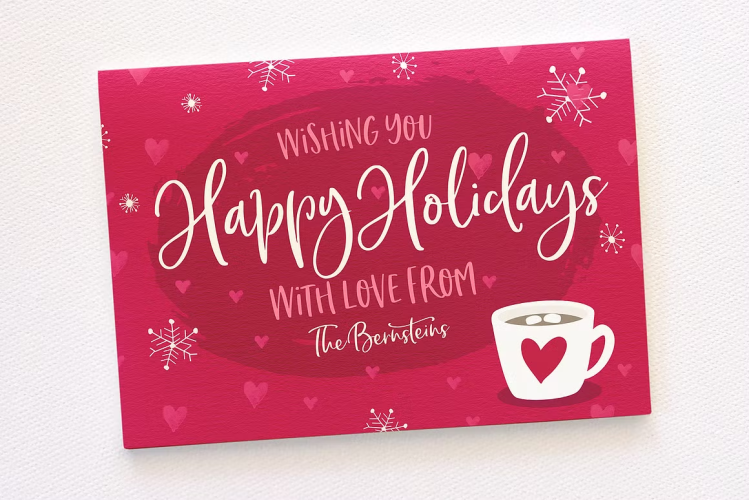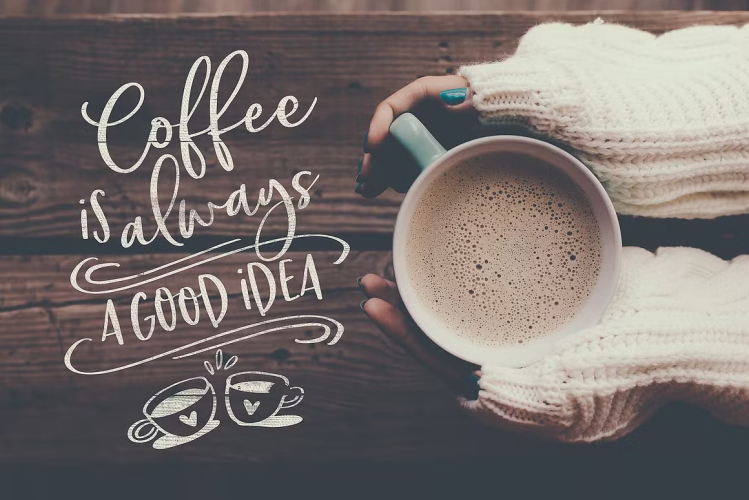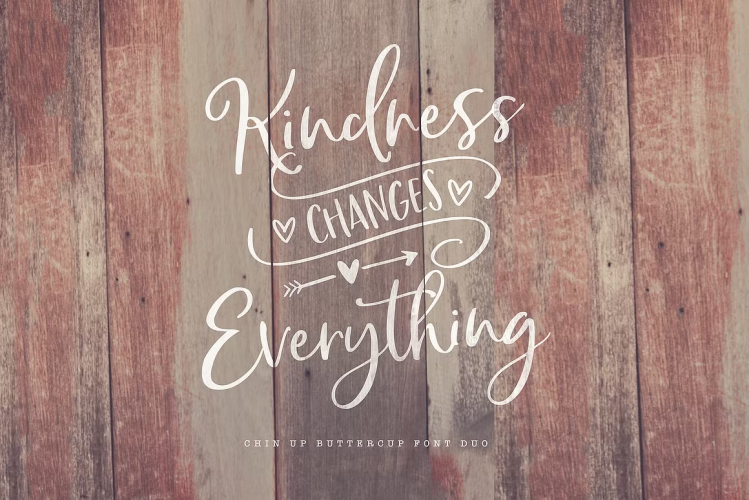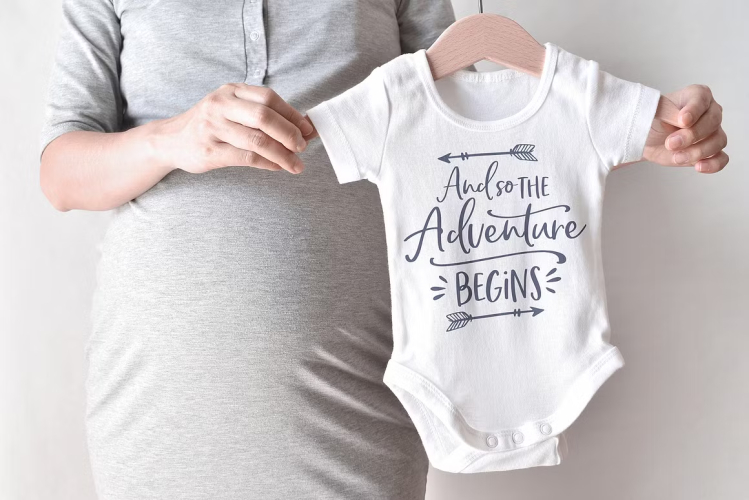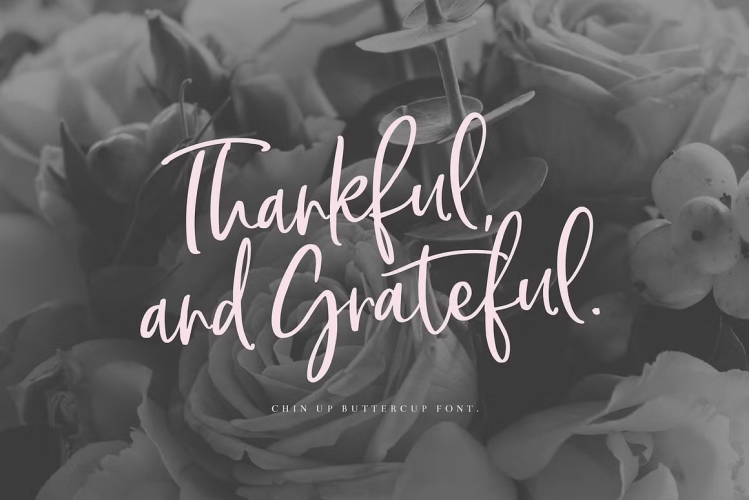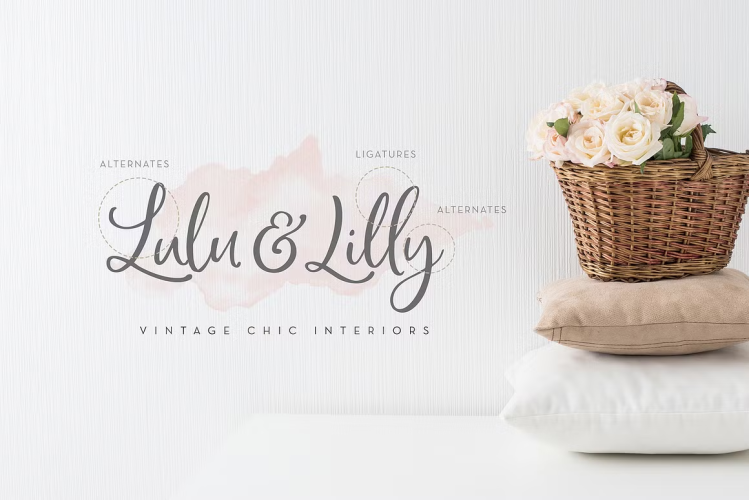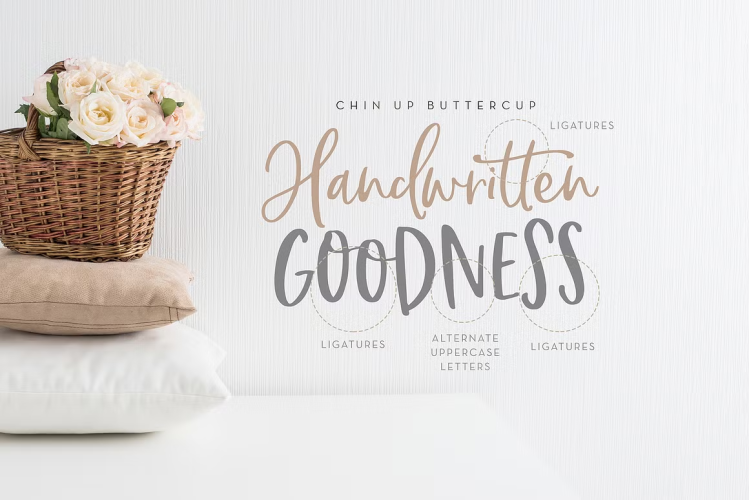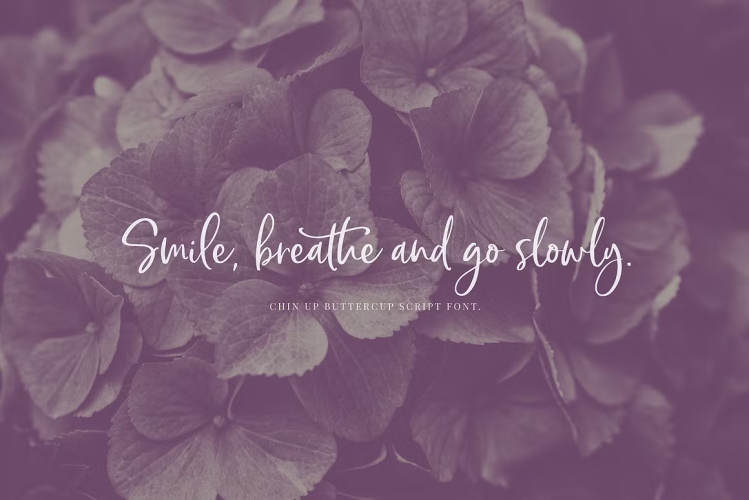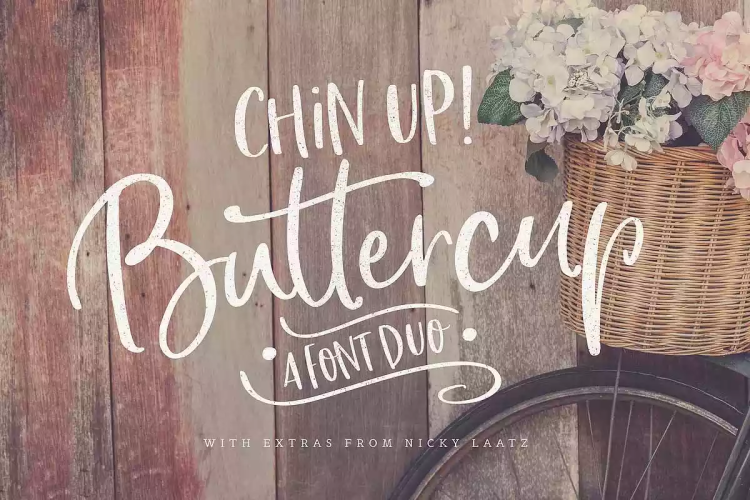
Chin Up Buttercup Font
Introducing Chin Up Buttercup! A Perfectly Playful new font paired with a handy set of complimentary Illustrations.
Creative and Casual, together or apart, Chin up Buttercup Fonts and Illustrated Doodles allow you to instantly create gorgeous typographic designs—just in time for all your Christmas labels, cards, and branding!
It’s perfect for DIY projects, greeting cards, labels, quotes, posters, wall art, branding, packaging, websites, photo and photography overlays, signs, window art, scrapbooking, tags, and so much more!
The Duo comprises a Whimsical Script and a playful ‘Cutecaps’ Sans serif font.
The script has an alternate upper- and lowercase character set and a large selection of Standard Ligatures, allowing you to make your design truly unique.
Not to be left out, the ‘Cutecaps’ comes with alternate characters in the uppercase set and cute little ligatures.
To add to this pack’s creative punch, you get over 40 handy doodle illustrations with Chin Up Buttercup fonts to create the cutest Typo designs ever! See the previews above for inspiration on utilising them.
Chin Up Buttercup Font is a Script And Handwritten font that brings a professional and versatile look to your projects. Introducing Chin Up Buttercup! A Perfectly Playful new font paired with a handy set of complimentary Illustrations.